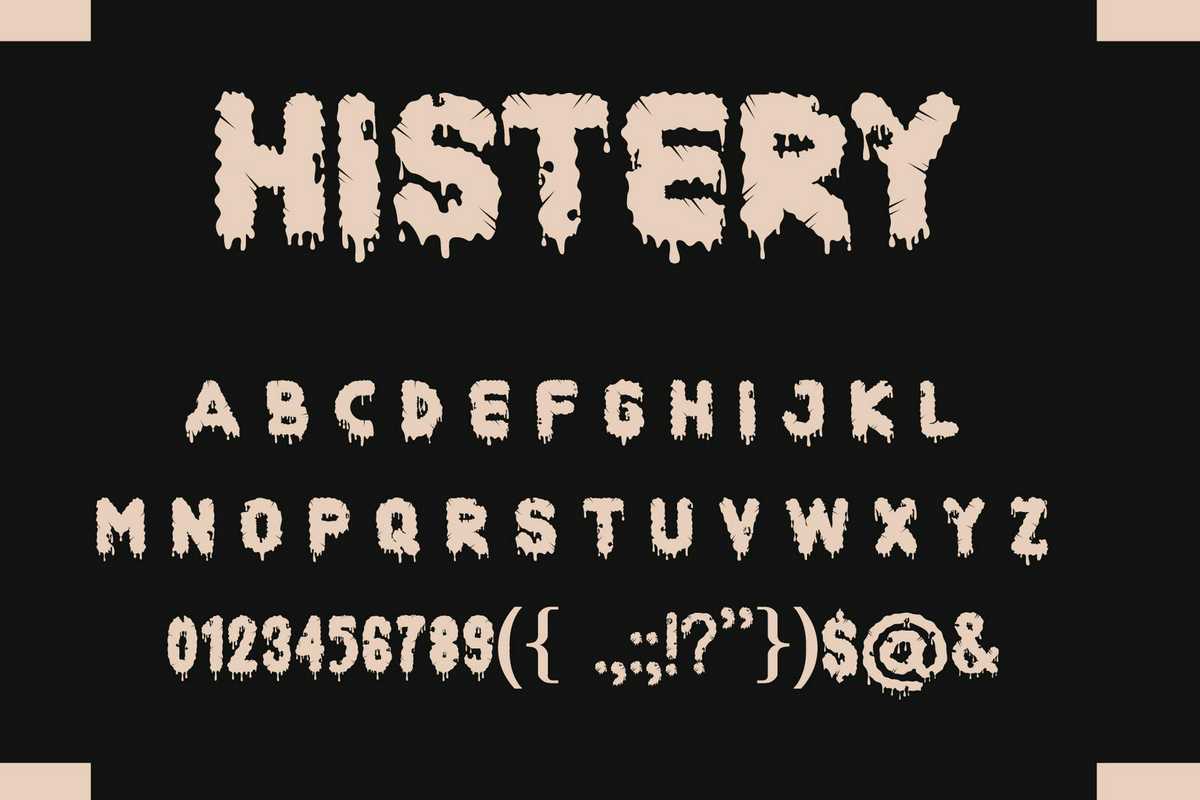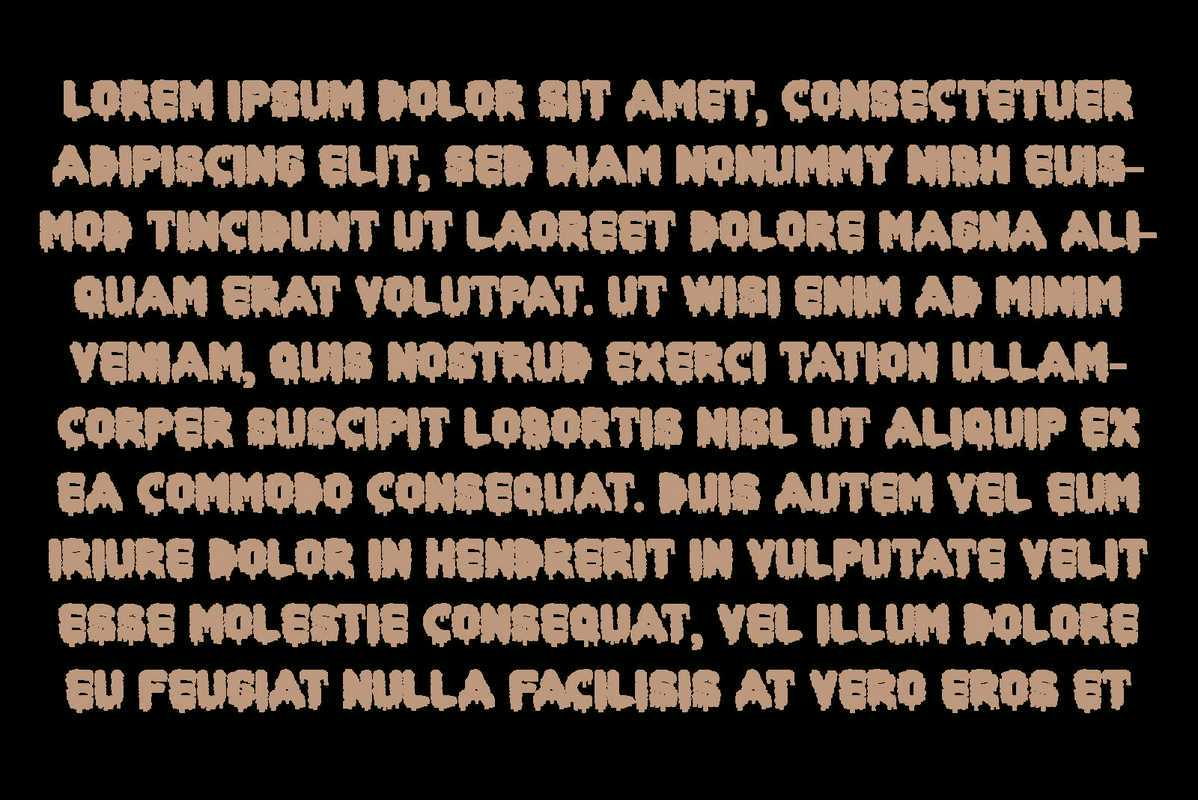
HisteryHorrorFontInStyleFrovy.SetofMulticoloredBrightLetters刷新说明和YourDesign.VectorillInstruction.Isolatedonwhitebackground.HisteryHorrorFontInStyleFrovy.SetofMulticoloredBrightLetters刷新说明和YourDesign.VectorillInstruction.Isolatedonwhitebackground。